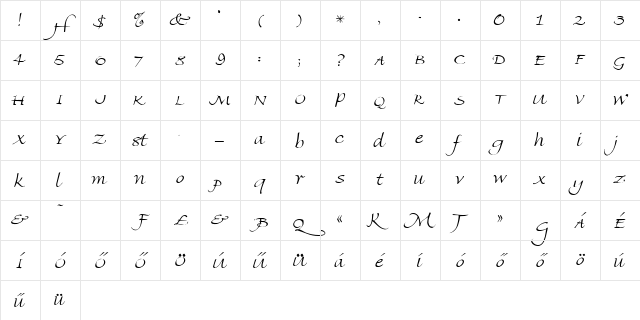
Florence-LtHU Normal Free Font
Florence-LtHU Normal
Design Context for Florence-LtHU
Florence-LtHU is a composed and adaptable typeface that performs quietly and consistently across a wide range of design contexts.